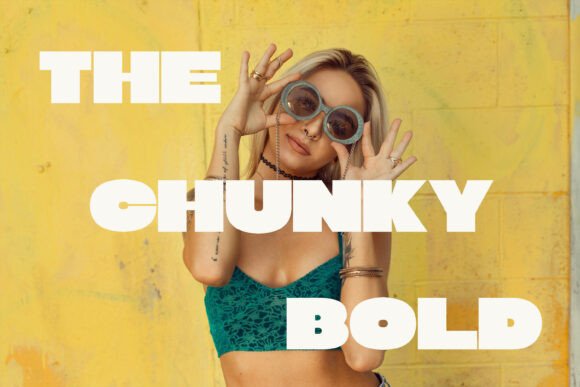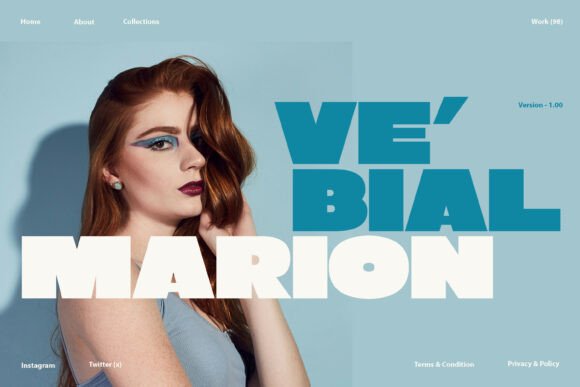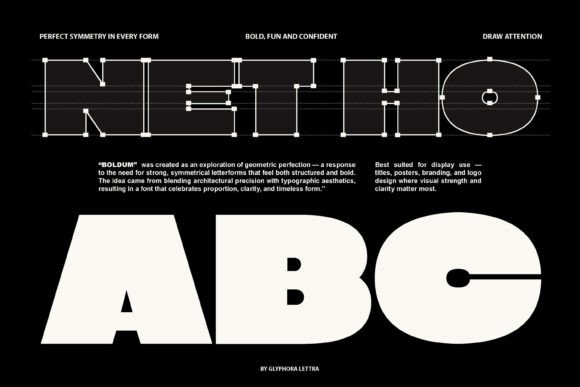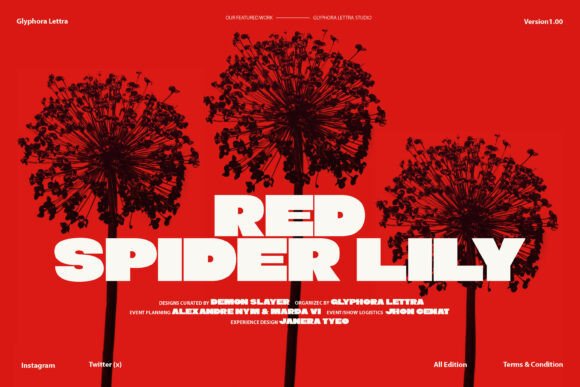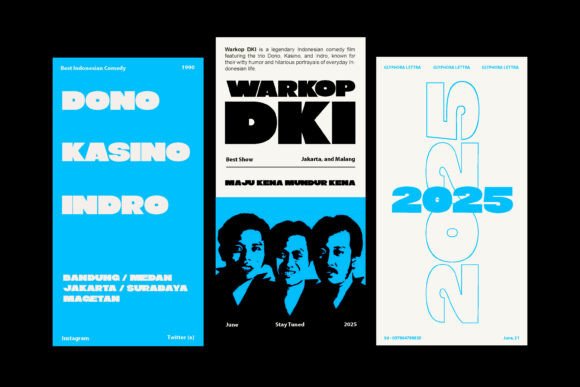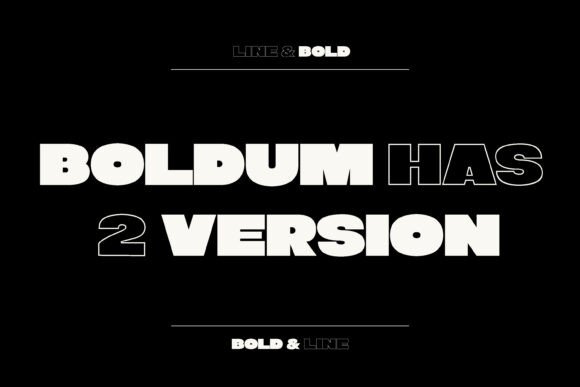
The Birth of a Bold New Era: Introducing the Boldum Font
Have you ever been brainstorming a new brand identity and suddenly, a spark of creativity strikes? A bold idea bursts forth, and you know exactly what direction you want to take. That’s what happened to the designers behind the Boldum Font. This chunky, bold typeface was crafted to evoke a sense of playful power, perfect for modern branding.
The result is a font that exudes friendly warmth while maintaining a confident geometric structure. This unique blend of expressiveness and reliability makes the Boldum Font an ideal choice for designers looking to create strong, yet approachable visual identities. Whether you’re working on a poster, packaging, or digital media project, this font is sure to bring a touch of modern charm to your designs.
Boldum Font Key Features
- Unique Characteristics: The Boldum Font features a distinctive, modern design with clean lines and geometric shapes, making it perfect for contemporary branding and design projects.
Designer Review: Boldum Font
As a designer, I was excited to dive into the Boldum Font and see if it lives up to its name. Overall, I found it to be a solid choice for a sans-serif font, but with some limitations that prevent it from standing out.
- Sharp and modern aesthetic: The Boldum Font has a crisp, clean look that’s perfect for modern designs.
- High legibility: The font is easy to read, even at smaller font sizes, making it a great choice for body text.
- Good for headings: The bold weight is strong and attention-grabbing, making it ideal for headings and titles.
- Lack of personality: While the Boldum Font is modern and clean, it feels a bit generic and lacks a unique personality.
- No italic or script styles: The font is limited to a single style, which can make it feel restrictive for designers who want to add some flair.
- Not ideal for small text: While the font is legible, it can become a bit fuzzy when used at very small font sizes.
The Boldum Font is a solid choice for designers who want a modern, clean sans-serif font. However, its limitations prevent it from standing out in a crowded market. If you’re looking for a font that’s easy to read and works well for body text and headings, the Boldum Font is worth considering. But if you’re looking for a font with a bit more personality or flexibility, you may want to look elsewhere.
Tips: Use Boldum Font to add a touch of elegance to your headings and titles. Experiment with different font sizes and colors to create visual interest.
Tips: Use Boldum Font to create custom typography for your logos, icons, and graphics. Experiment with different font sizes, colors, and effects to add depth and dimension.
Tips: Use Boldum Font to add a touch of sophistication to your presentations and documents. Experiment with different font sizes and colors to create visual interest.
Boldum Font is perfect for:
- Logos and icons
- Graphics and illustrations
- Presentations and documents